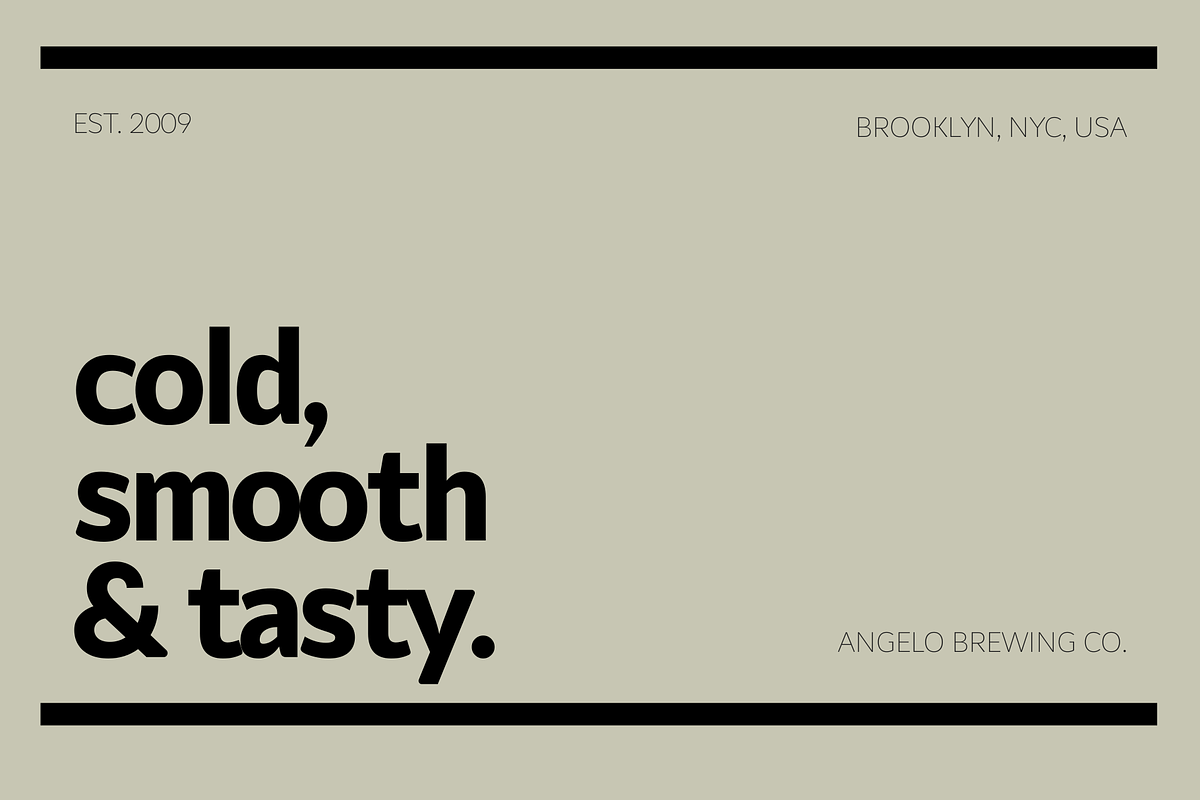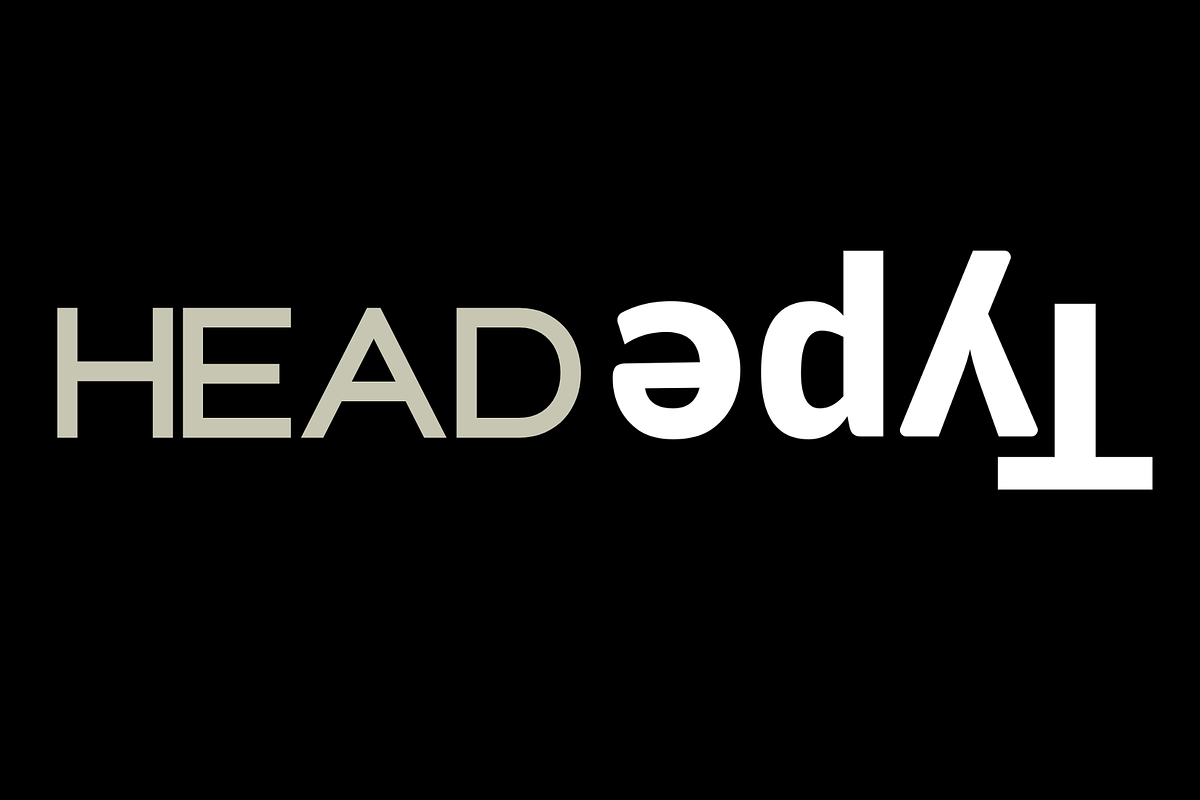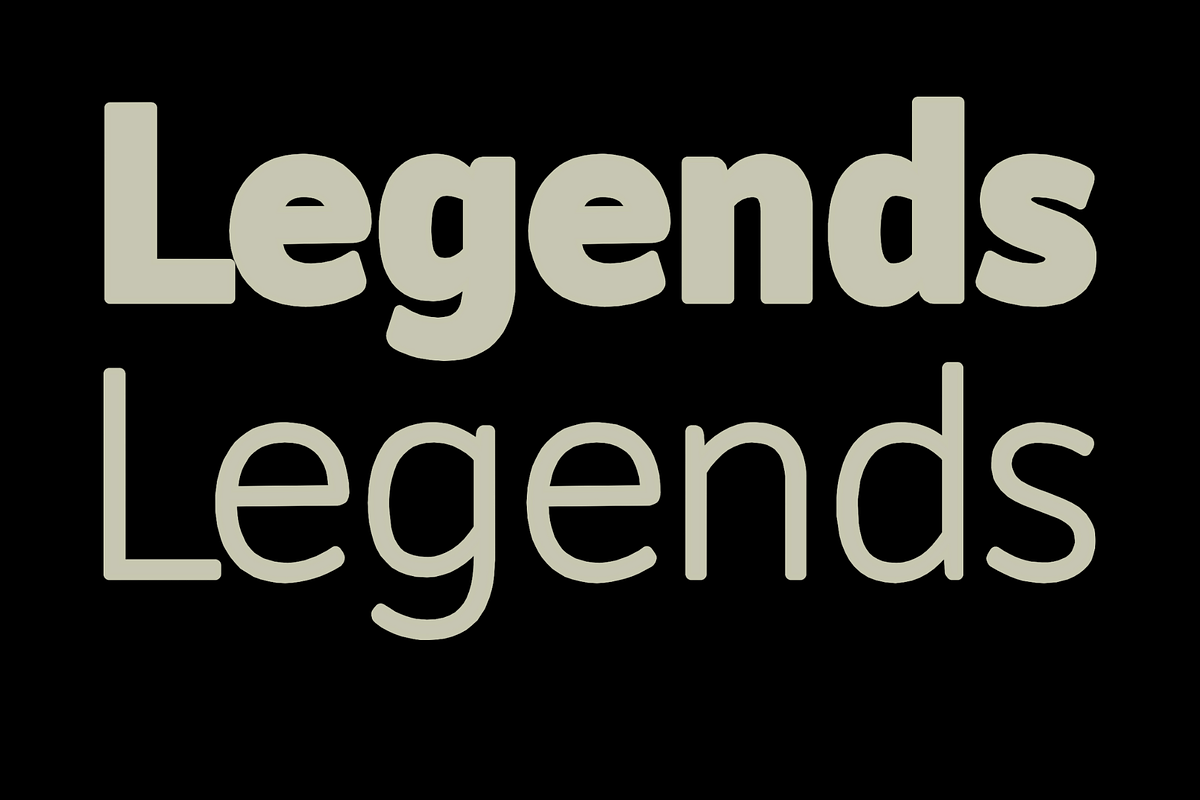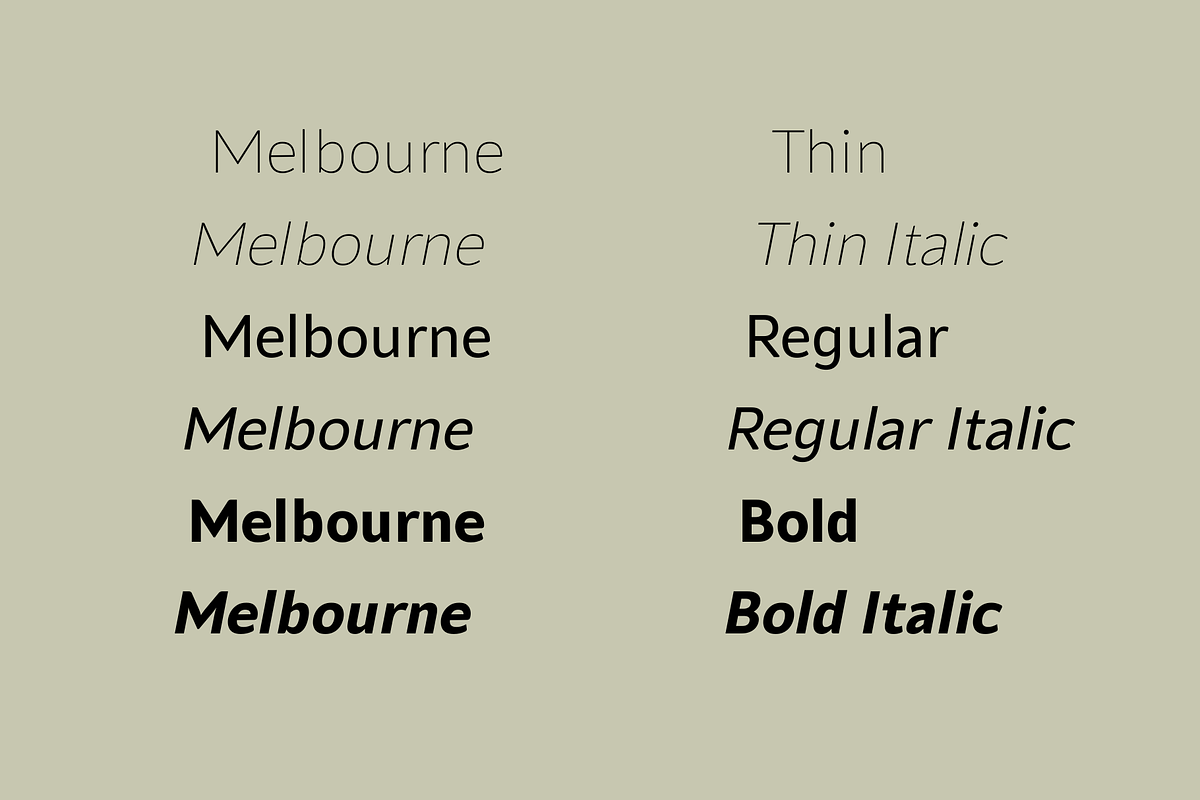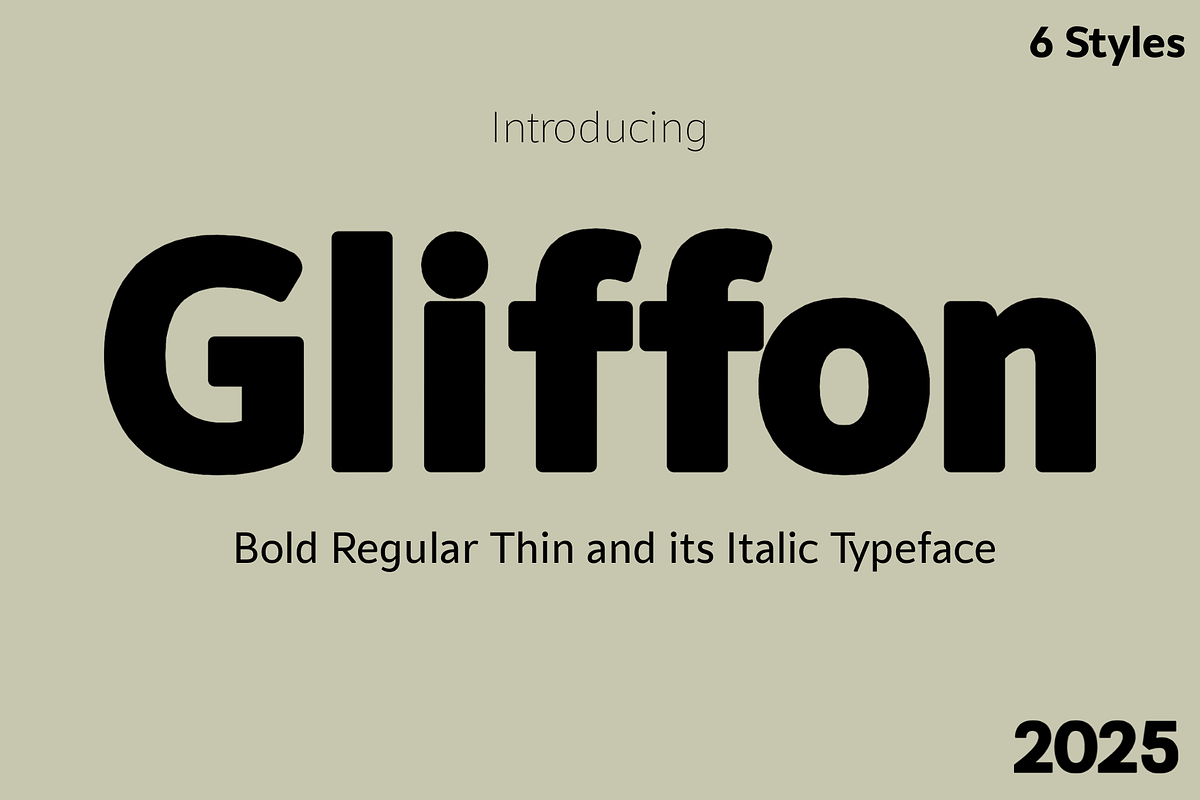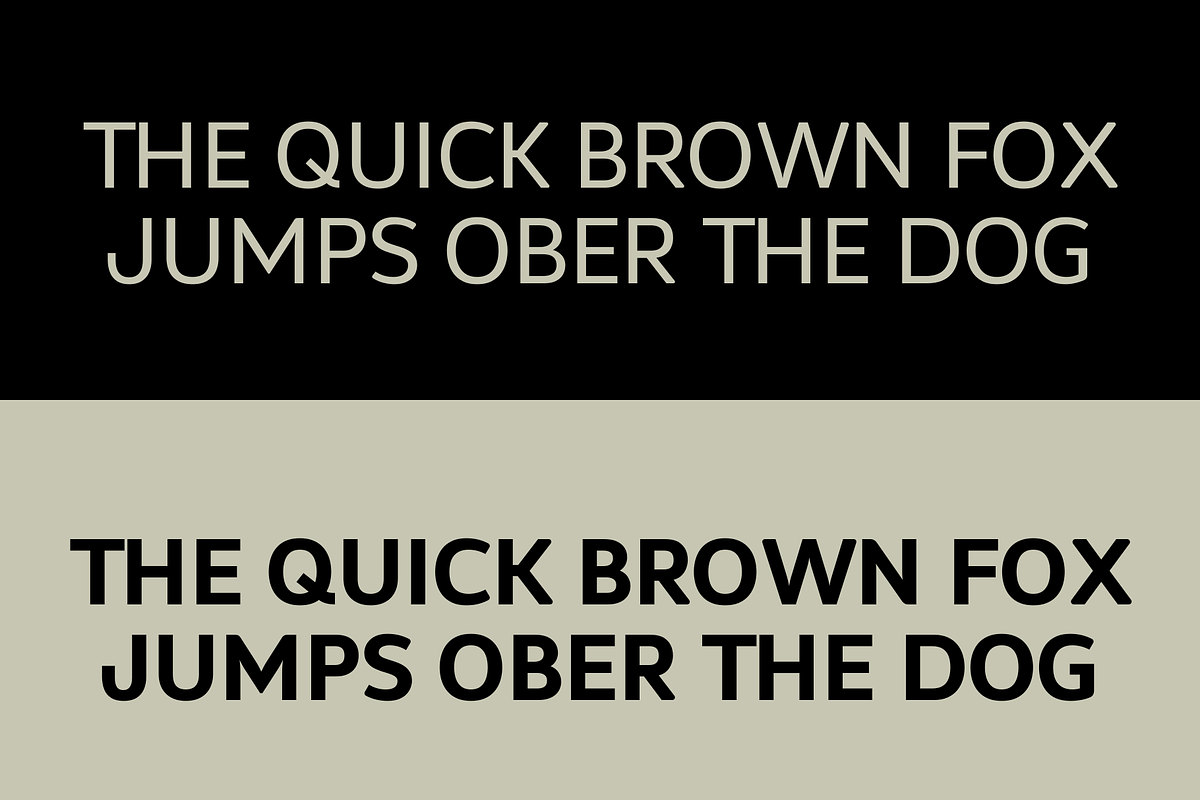
Gliffon
Introducing Gliffon a sleek and modern sans-serif font family inspired by the friendly elegance of Sans. With gently rounded edges and open, inviting letterforms, Gliffon is designed for clarity, legibility, and visual comfort in a wide variety of creative projects. The font comes in 6 versatile styles—from Thin to Bold Italic—making it ideal for branding, editorial design, UI/UX, advertising, and multilingual text. Let Gliffon transform your creative vision from intangible to tangible with ease and sophistication.